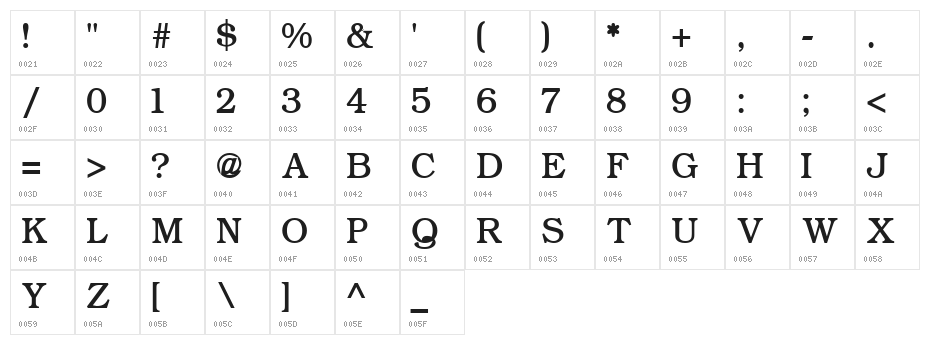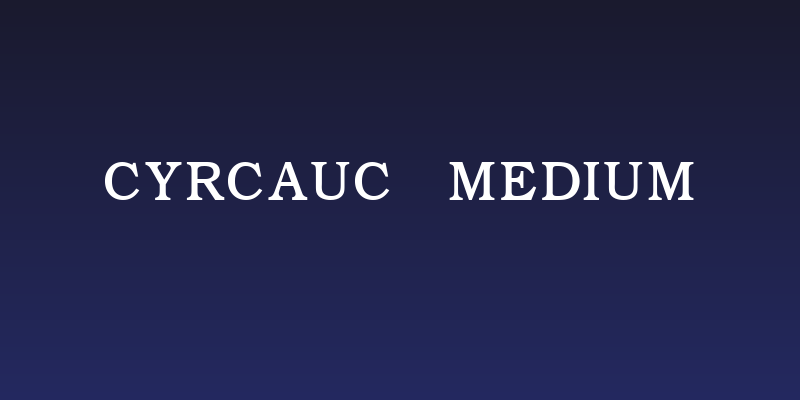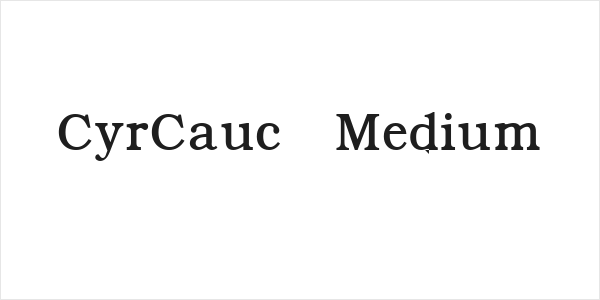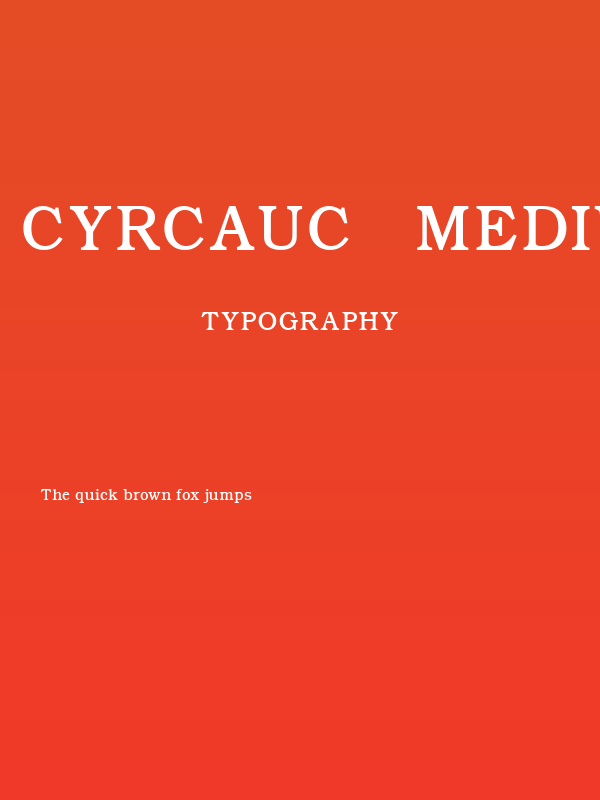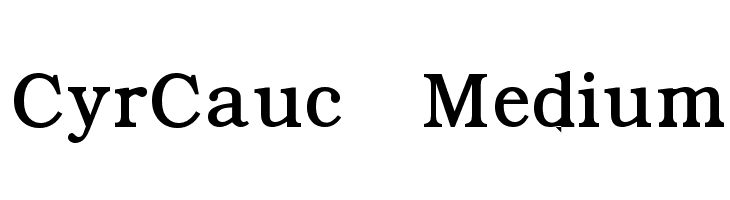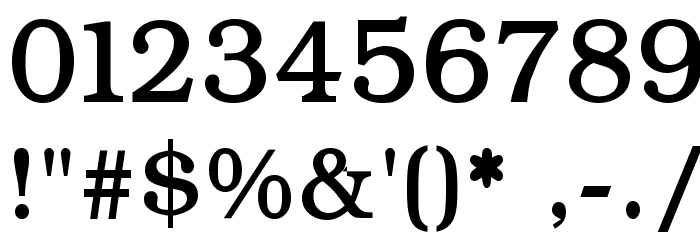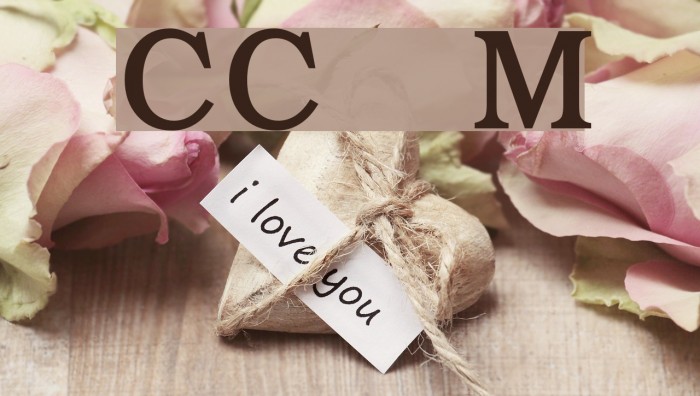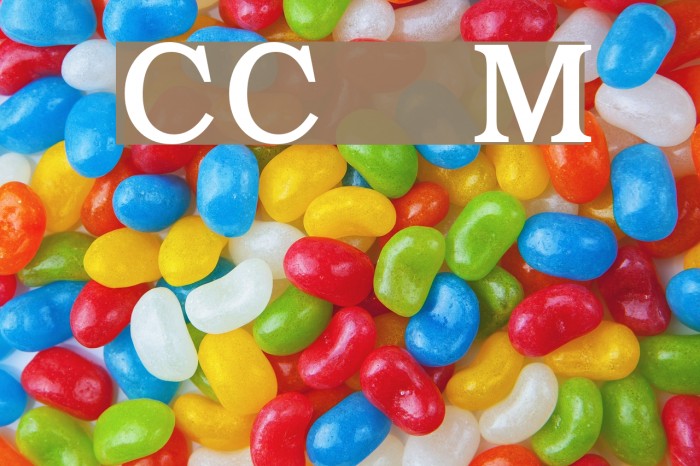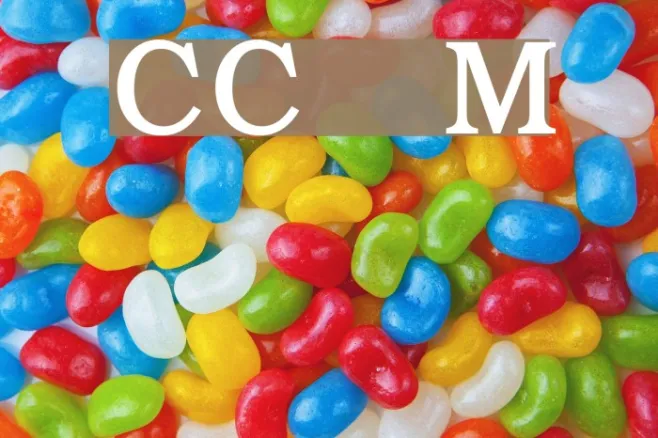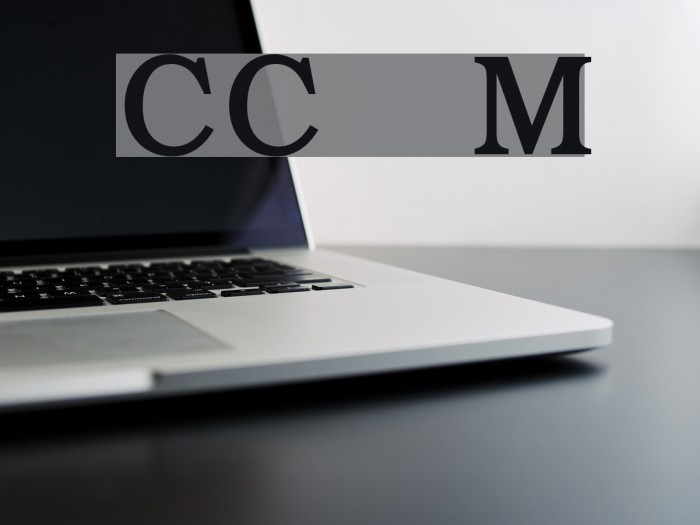
CyrCauc Medium Font
CyrCauc Medium Description
This font features a classic serif style with distinct, sharp serifs and a medium weight that provides a balanced appearance. The uppercase letters are bold and commanding, while the lowercase letters maintain a consistent and readable flow. Numbers are clear and well-proportioned, making them suitable for both display and body text. The special characters are designed with the same attention to detail, ensuring a cohesive look across all glyphs. The overall design is traditional yet versatile, making it suitable for a variety of applications.
| Proposed Projects | Ideal for editorial design, book covers, formal invitations, and branding projects that require a traditional yet elegant touch. |